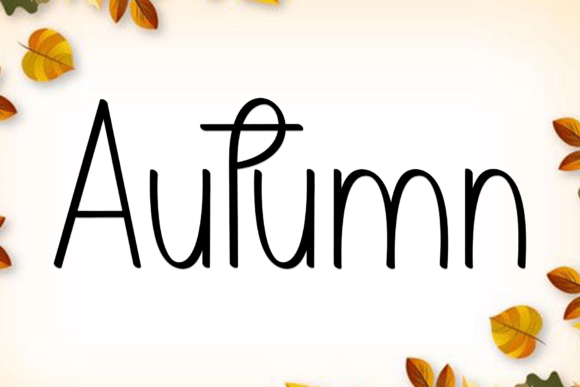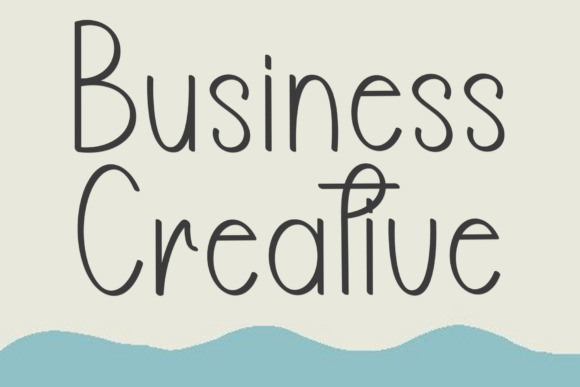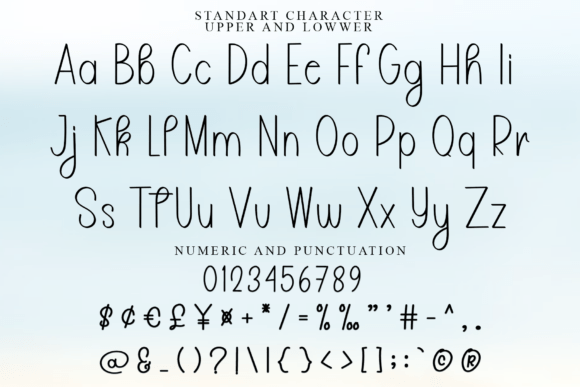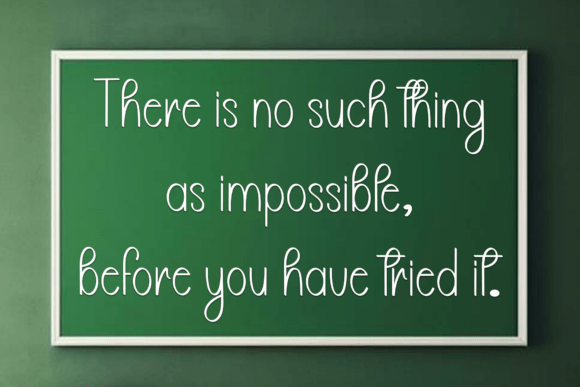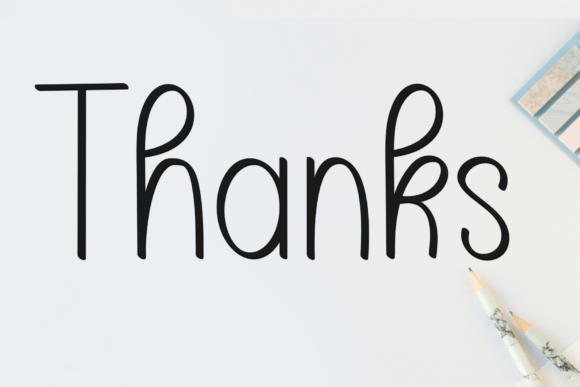
Butter Summer is a tall, sweet handwritten font with a friendly and casual feel. It’s perfect for adding a charming, handcrafted touch to any design project. In this article, I’ll share my honest review of the font, provide a practical guide on how to use it, and explore similar fonts that might tickle your fancy.
- ✅ Unique and charming handwritten feel that’s perfect for bakery branding, food blogs, and birthday invites
- ✅ Friendly and casual tone that’s sure to delight your audience
- ✅ Great for adding a personal touch to your designs without overwhelming them
- ⚠️ Some characters may appear a bit narrow, so be mindful of spacing
- ⚠️ Limited availability of stylistic alternates, but still plenty of OpenType features to explore
A Practical Guide to Using Butter Summer Font
Once you’ve selected the font, you can experiment with OpenType features like ligatures and stylistic alternates. For example, you can use the ligatures to create a more fluid, handwritten feel.
The Story Behind Butter Summer Font
Butter Summer Font was designed with love and care by a talented type designer who wanted to create a font that felt like a warm hug. The designer drew inspiration from classic handwritten fonts, but with a modern twist. The result is a font that’s both nostalgic and fresh.
Q: Is Butter Summer Font suitable for body text?
A: While Butter Summer Font is highly legible, it’s best suited for headlines and short paragraphs. For longer body text, you may want to consider a more traditional serif font.